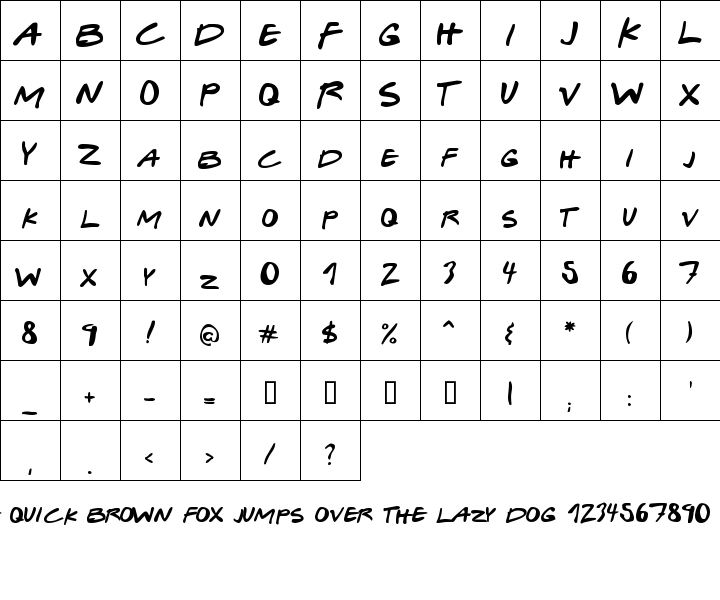
Friends TV Show Font is a logo-based font that has a fancy texture appearance. This typeface has been inspired by the font that was used in the title of the famous American Tv Serial “Friends”.
The original font that was used in the title was Gabriel Weiss. This typeface has an immature and fancy texture style that can utilize to make creative designs. This typeface can also use to create the designs of YouTube thumbnails and website designs.
You can also utilize this typeface in Canva and Adobe for creating different designs. This typeface can also utilize to create banners, posters, movies title, games, creating invitation cards, labeling products, etc.
This typeface is also well-known for its copy and pastes abilities. This typeface has the most similarities to the Arvo Font and Pinterest Logo Font.
Designer of Friends TV Show Font
The original font that was used in the title of this movie was designed by Gabriel Weiss. He is a Swiss designer who has also created some famous typefaces. He focuses on creativity while creating this font style.
This amazing logo-based font style is designed with a single style. This single style is comprised of Numbers, Uppercase Letters, Symbols, Special Characters, glyphs, Punctuations, and many languages support.
| Name | Friends TV Show Font |
| Style | Logo |
| Designer | Gabriel Weiss |
What type of font is Friends TV Show font?
It is a logo-based font type that is designed by Gabriel Weiss a famous typographic designer.
What font is closest to Friends TV Show Font?
Some of the typographies have a texture that is surprisingly similar to that of this font. Dancing Script typeface, on the other hand, is very close to this font. Feel free to use this typeface as an alternative to the Dancing Script font style.